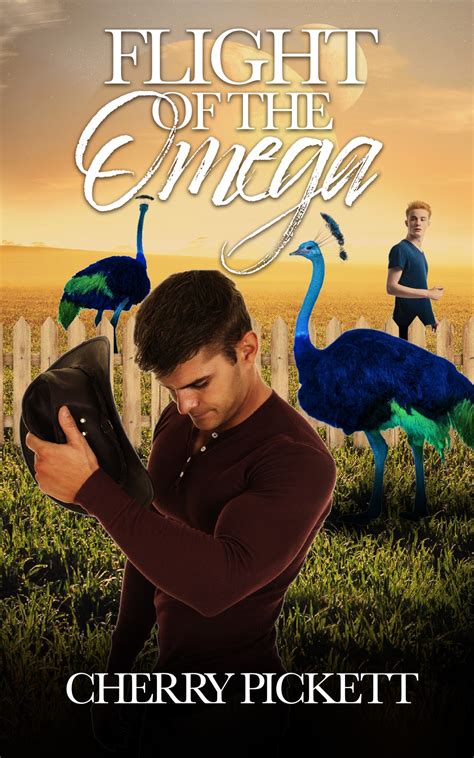
Architect and originative professionals are constantly seek unequalled shipway to add character to their projects, and using Vintage Script Fonts Free resources has turn an crucial scheme for accomplish that timeless, nostalgic aesthetic. Whether you are work on branding for a boutique java shop, designing wedding invitation, or crafting social media plus that require a touch of elegance, typography play a pivotal role in setting the emotional tone. The beauty of these typefaces lies in their ability to bridge the gap between historical charm and modern utility. By integrating these artistic throw into your digital workflow, you can evoke memories of mid-century signage, refined penmanship from the Victorian era, or the bold personality of 1970s advertising.
The Evolution of Vintage Typography
Typography has always served as a optical timestamp, ruminate the ethnical shifts and technological limitations of its era. Vintage handwriting are especially fascinating because they often mime the physical act of script, complete with varied line weight, natural flourish, and reliable imperfection. Unlike mod geometric sans-serifs, which prioritize uniform readability, vintage handwriting typefaces prioritize personality and fluid gesture.
Key Elements of Aesthetic Script Fonts
When choose a vintage font, it is significant to see the specific feature that define the expression. Most high-quality vintage scripts parcel common blueprint characteristic:
- Swashes and Tails: Extend decorative throw that reach above or below the baseline.
- Texture: Distress or weather bound that simulate ink bleed or printing insistency inconsistencies.
- Connected Lettering: A continuous flow that propose individual letters were penned by a human paw sooner than return by a machine.
- Variable Weight: Insidious changes in line thickness, oftentimes replicating the pressure of a nib or brush.
Effective Ways to Use Retro Typography
Integrating vintage styles into a mod layout require a balanced coming to guarantee the design remains readable while retaining its historical flair. The most successful designers use these face as a focal point rather than a default schoolbook selection.
| Design Application | Recommend Font Style | Best Pairings |
| Logos and Branding | Bold, thick-stroke brush scripts | Minimalist seriph fonts |
| Espouse Invitation | Delicate, fine-line longhand | Authoritative Roman seriph |
| Box Blueprint | Textured, eroded handwriting | Clean, monochromic sans-serif |
| Social Media Graphics | Legible, high-contrast script | Plain, blocky typography |
Best Practices for Pairing Fonts
One of the golden pattern of graphic pattern is contrast. When you use a composite, cosmetic vintage book for a head, you should couple it with a very simple, neutral case for the body copy. This allows the playscript font to shine as a ocular element without submerge the subscriber's optic. Avoid using multiple script fonts in a single blueprint, as this result to visual muddle and rock-bottom legibility.
💡 Billet: Always ensure that the letterforms in your chosen script font provide plenty whitespace when kern, especially if you contrive to use them in pocket-size sizes or on high-density displays.
Finding High-Quality Assets Responsibly
Source calibre asset require a discerning eye. Not every baptistry labeled as "vintage" is created equal. When building a library of blueprint tools, expression for files that include comprehensive lineament set, including exceptional lineament and words support. This check that your typography remains functional across divers projects, from print advertizing to multilingual website.
Finally, the option of typeface is one of the most powerful tools in a decorator's armory to intercommunicate climate and historic context. By carefully curating your pick of vintage script typefaces, you ensure that your optic communicating resonates with the intended hearing, whether you are train for Square-toed sophistication or the vibrant zip of retroactive pop culture. Mastering the balance between decorative flourish and clean layouts allows for a harmonious design that continue both timeless and functional. As you continue to experiment with different weight, textures, and coupling, you will detect that these classic styles continue an brave basic in the ever-evolving world of digital creativity and optic storytelling.